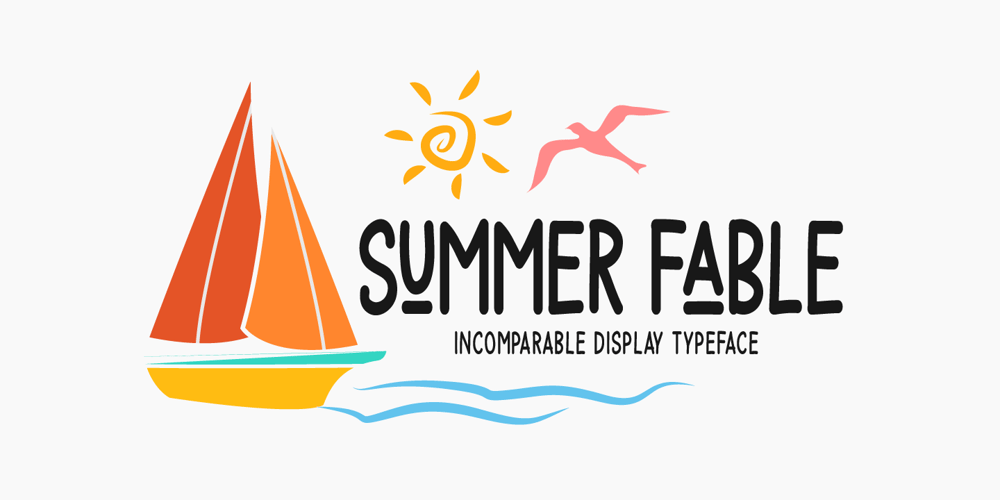
Summer Fable
Summer Fable font
Summer Fable Font Family was designed by Md Shohail Bhuian and published by Seemly Fonts. Summer Fable contains 1 styles and family package options. Summer Fable is a brand new display font. Summer Fable is perfectly suited for stationery, logos, t-shirt, paper, print design, website headers, photo frames, flyers, music covers, posters, image sliders, and much more.